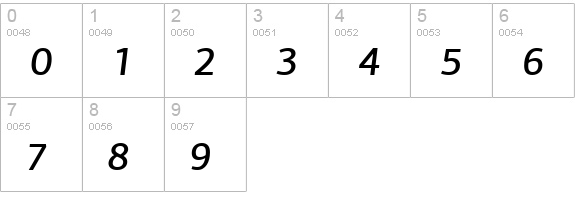
PFAgoraSansPro-MediumItalic is a versatile and elegant typeface that exudes a sense of modernity and sophistication. Its medium weight and italic styling add a touch of flair and personality to any design project. Whether used for headings, subheadings, or body text, this font conveys a sense of professionalism and refinement. What sets PFAgoraSansPro-MediumItalic apart is that it is not only visually appealing but also readily accessible to all designers and creatives. This high-quality font is available for free download at FontsMarket.com, making it a valuable resource for anyone looking to enhance their typographic arsenal without breaking the bank. With its clean lines, balanced proportions, and distinctive italicized characters, PFAgoraSansPro-MediumItalic offers a dynamic and engaging aesthetic that is sure to elevate any design to the next level. Whether you're working on a print project, a website, or any other creative endeavor, this font is a versatile and reliable choice that will help you achieve your desired look with ease.